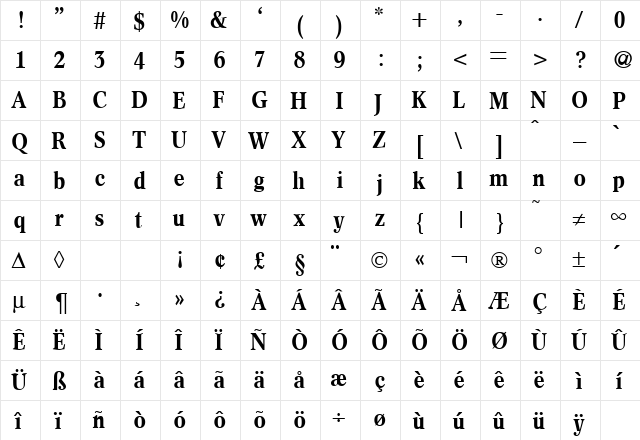
ConceptNova Bold
Design Context for ConceptNova Typeface
ConceptNova offers clean, dependable letterforms without strong stylistic allegiance, making it a practical choice for designers who need flexibility. Its bold stroke weight gives it real presence on the page.
Pro Tip: Pair ConceptNova with a font of contrasting weight or personality to build a more expressive typographic hierarchy.